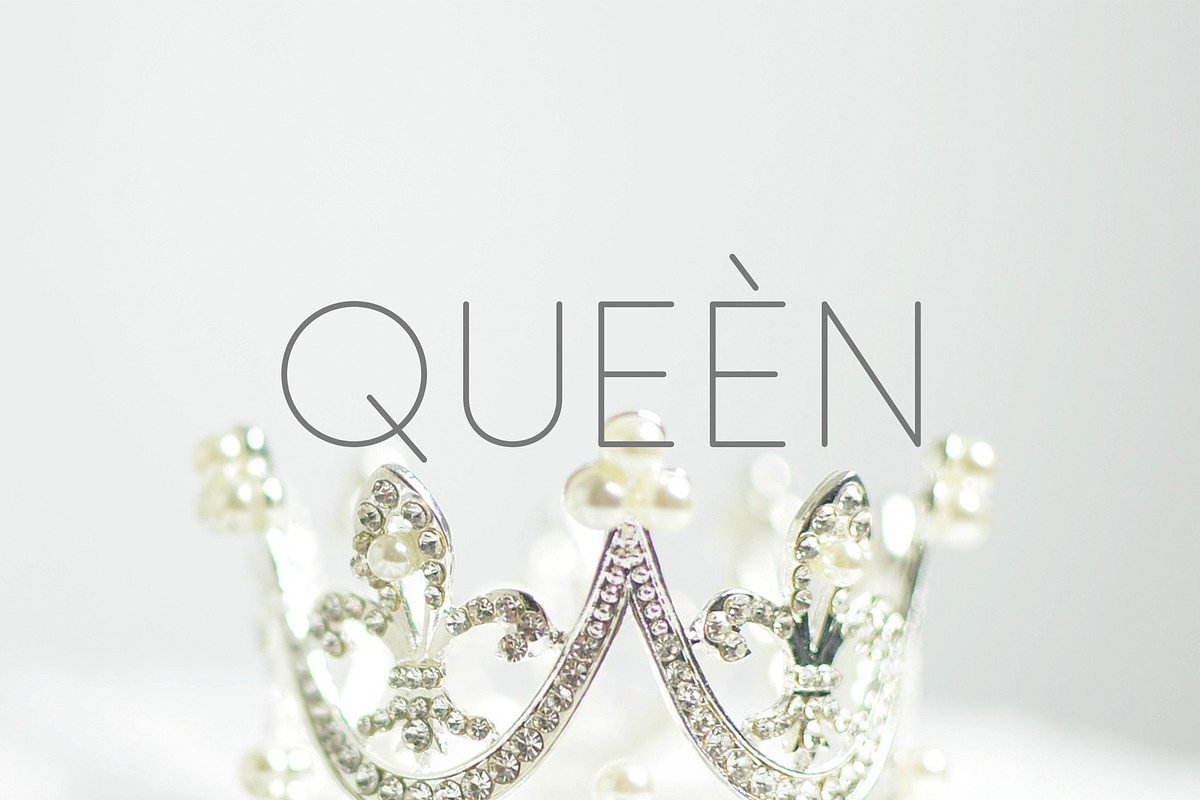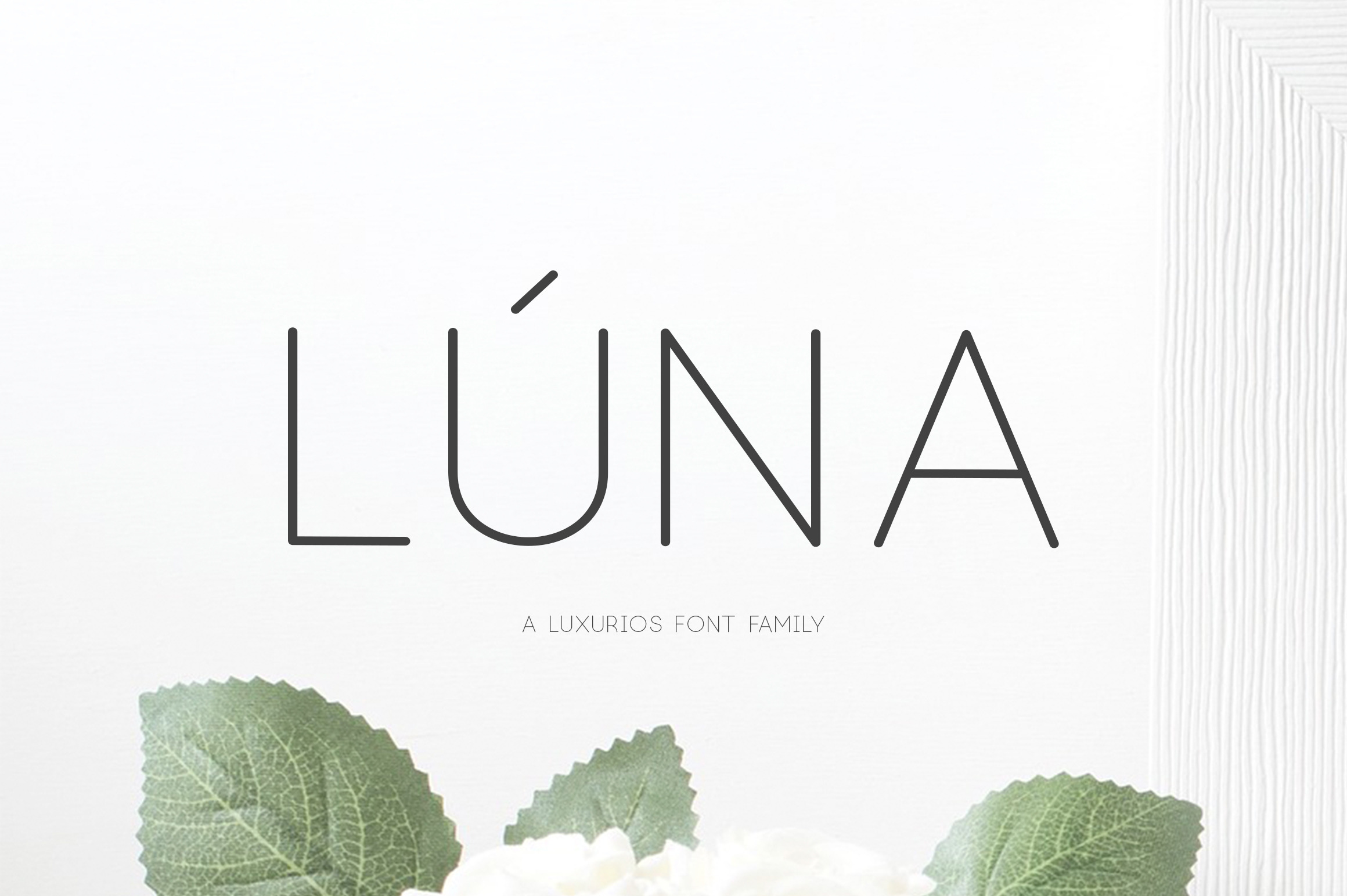
(NEW) Lúna - A Luxurios Font Family
The Story of Luna
Hi, I'm luna. Thank you for visiting me. I hope you are satisfied with me. I am very happy if I can help your work. Whatever work you do I hope to be included. Whether the job is related to logos, magazines, designs, weddings, cards, invitations, and more.
Oh yes, Luna can also be used in multingual languages. So, you do not have to worry anymore if you wear me.